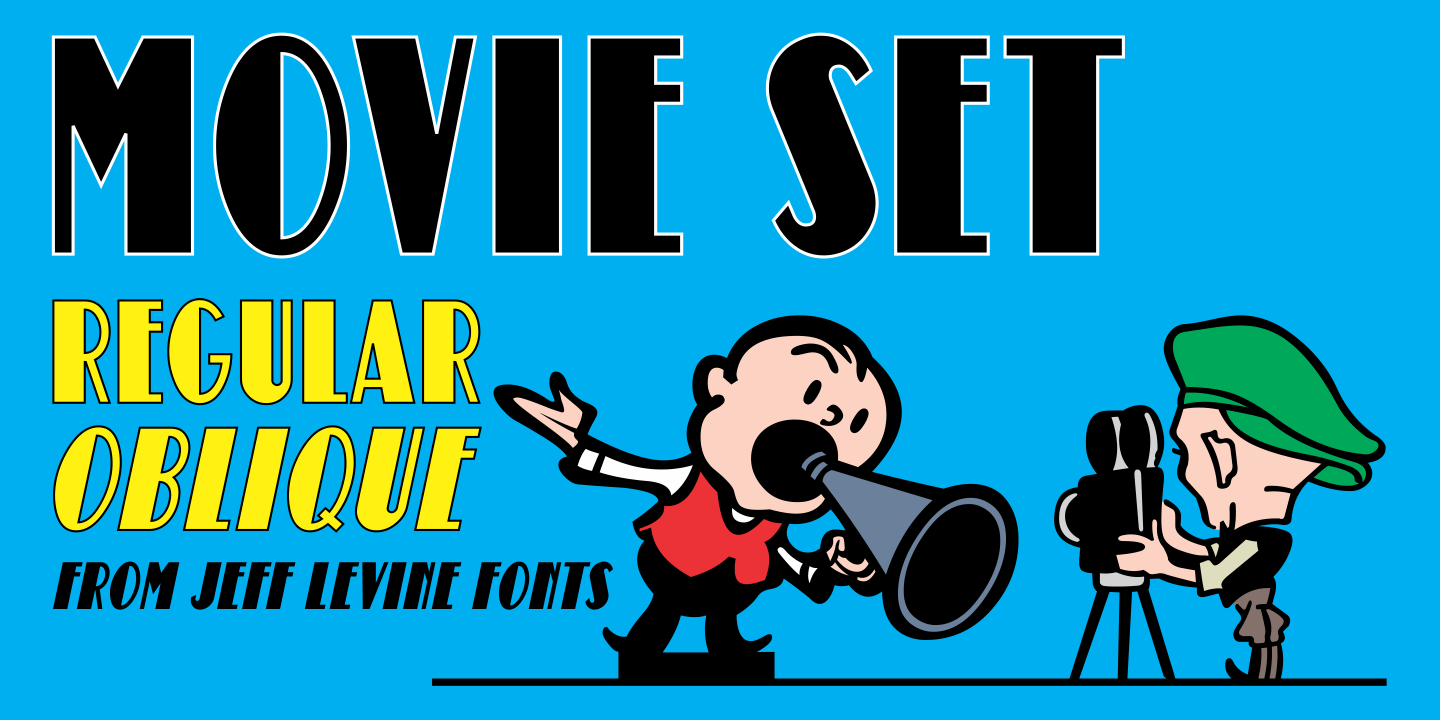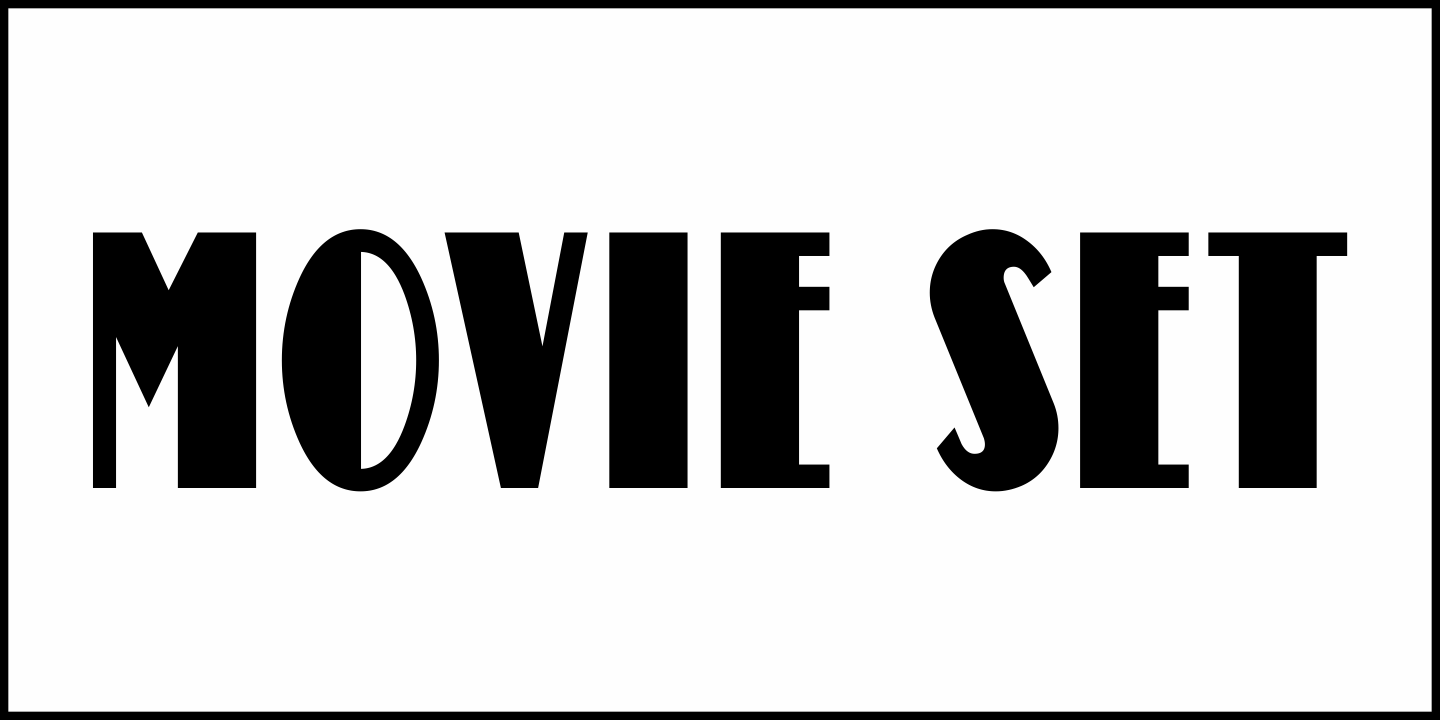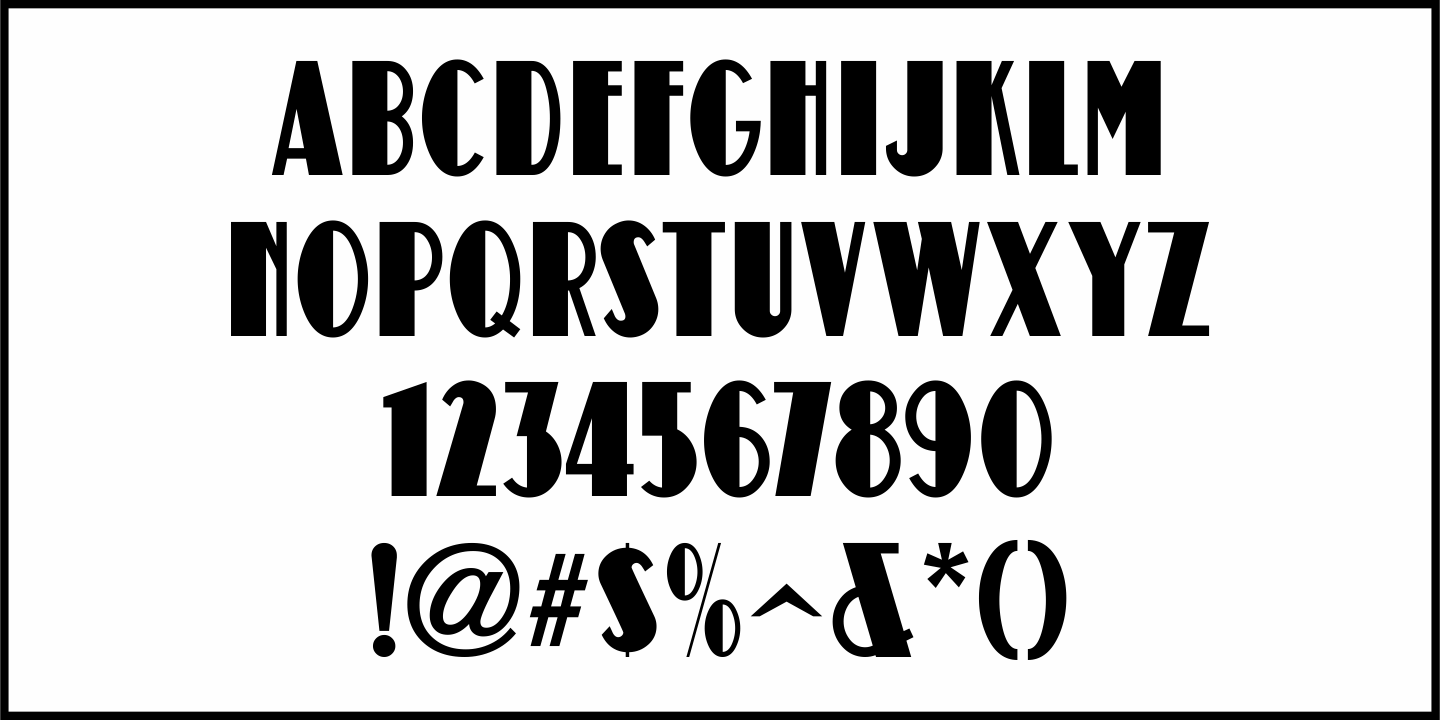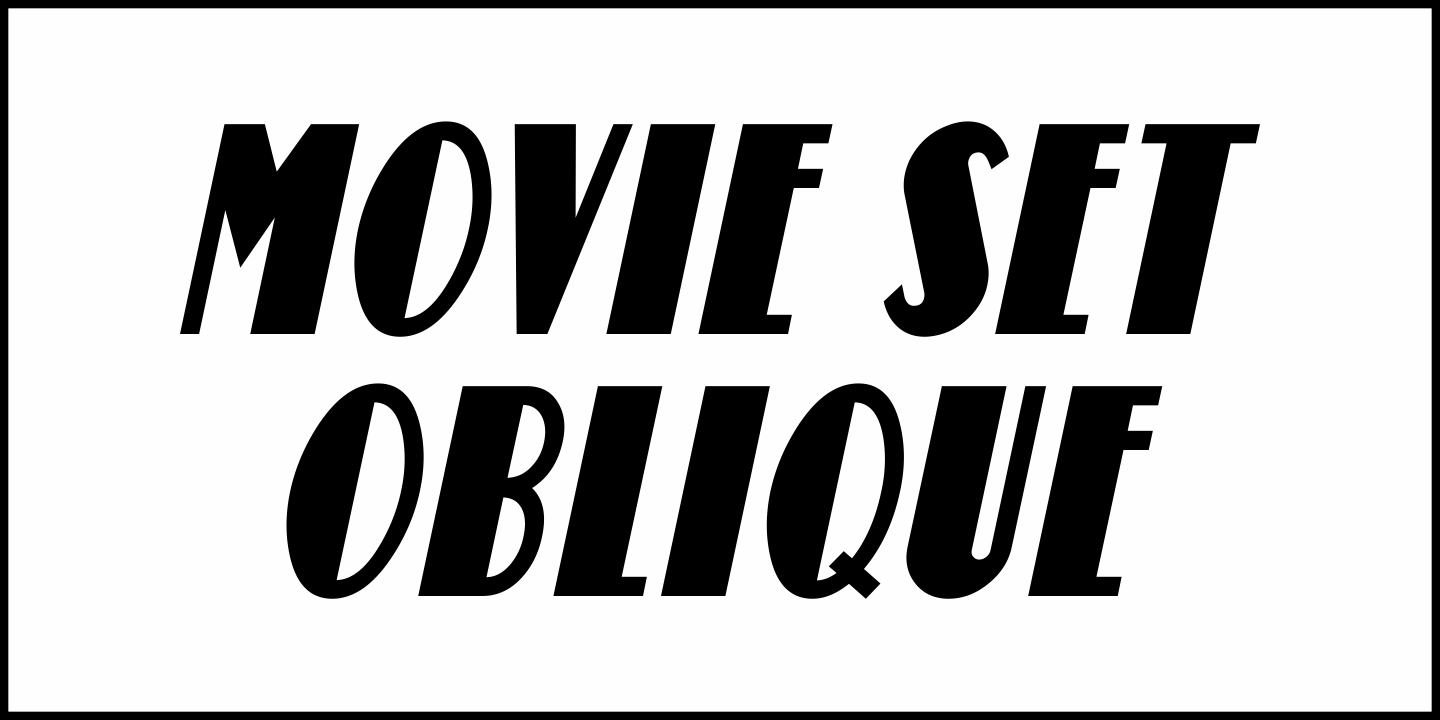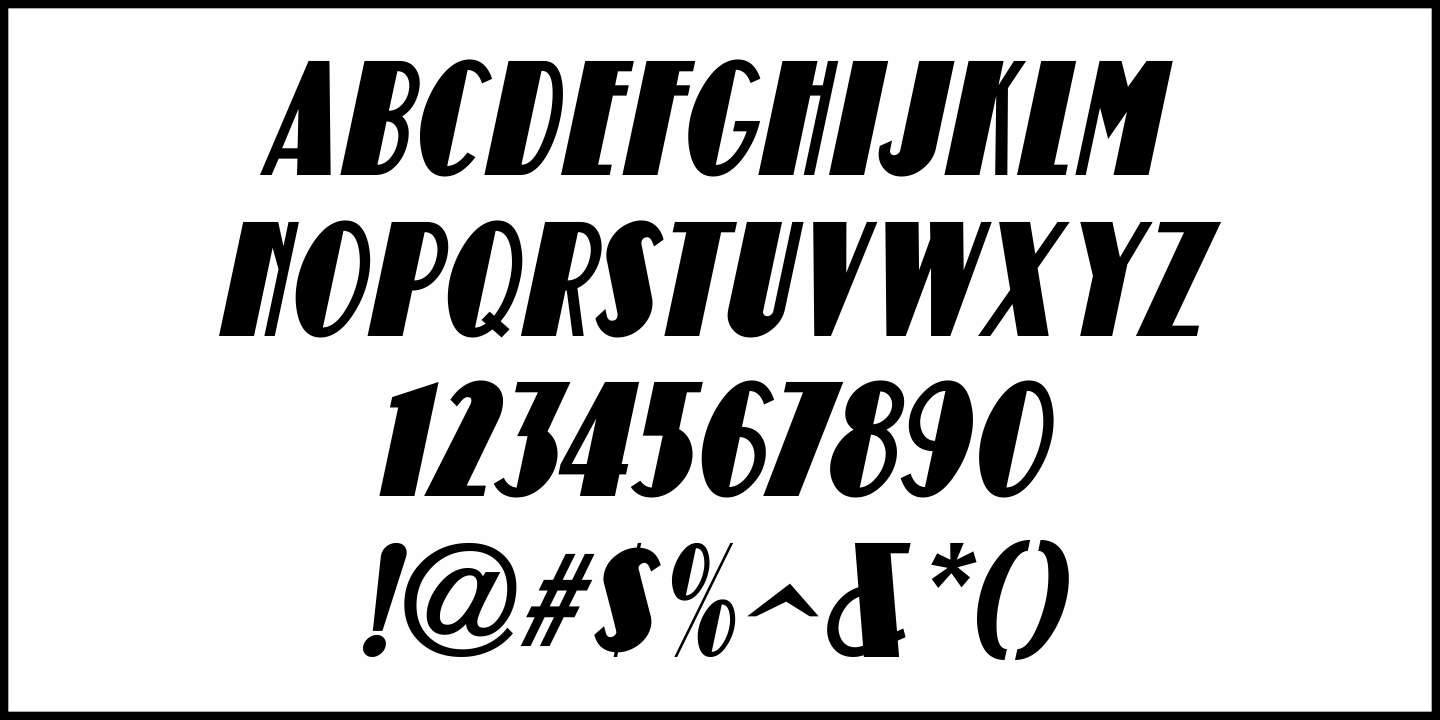
Movie Set
The hand lettered title on the poster for the 1929 film comedy “Why Leave Home?” inspired Movie Set JNL, which is available in both regular and oblique versions.
A classic “thick-and-thin” design with early Art Deco influences, this condensed typeface is perfect for any period projects.
Movie Set JNL Regular by Jeff Levine Fonts